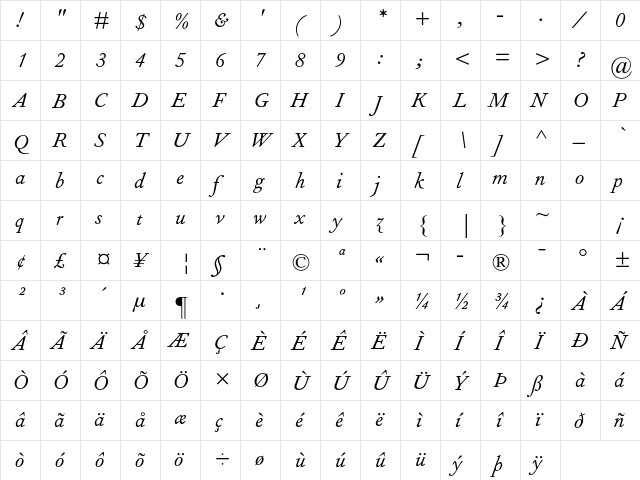
Fournier MT Std Italic
| Designer | Pierre Simon Fournier |
Design Context for Fournier MT Std Typeface
Fournier MT Std takes a measured approach to typography — its balanced proportions and neutral character make it a reliable workhorse for both digital and print work. The dynamic lean of this cut emphasises speed and emphasis in any layout.
Pro Tip: Use Fournier MT Std for emphasis, pull quotes, and subheadings where its slanted energy can add rhythm to the layout.